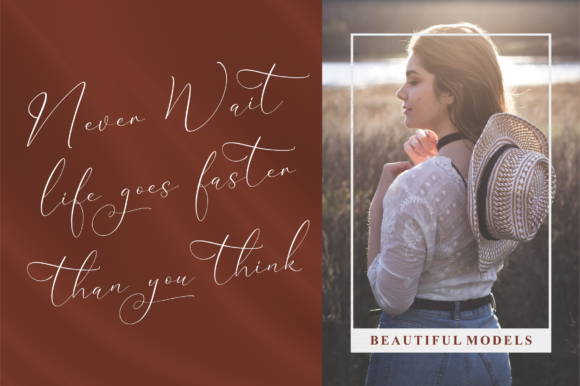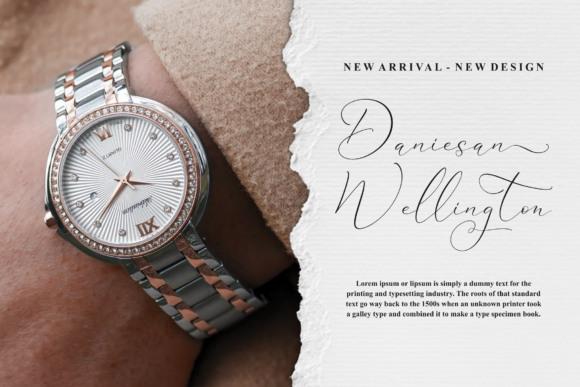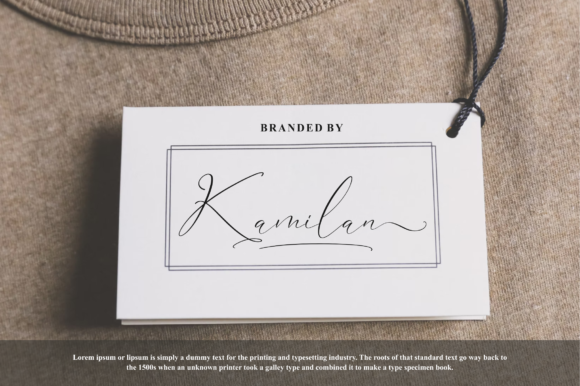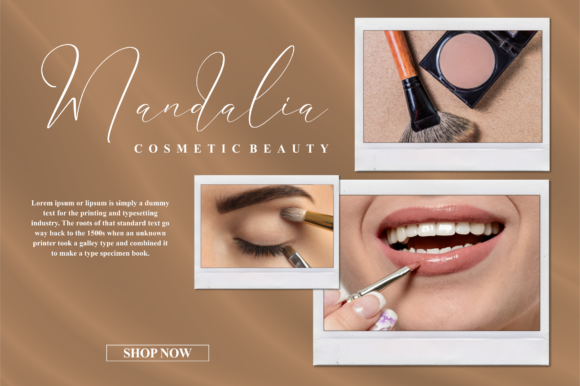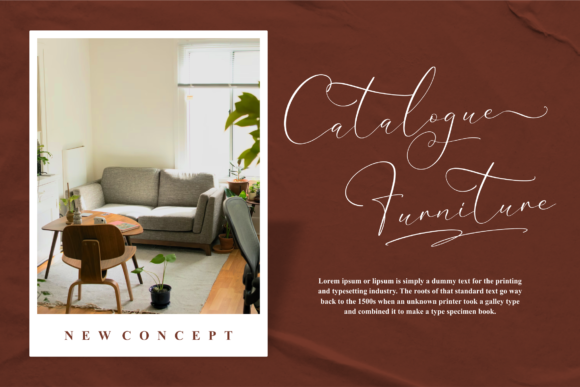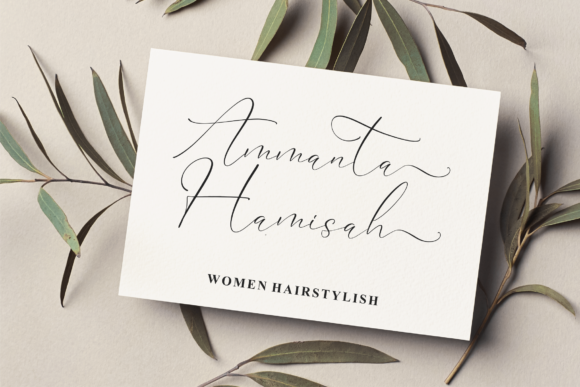
Falminga Charia Font: Elevate Your Designs with Elegance and Sophistication
Are you a designer or crafter looking for a beautiful script font to elevate your projects? Look no further than Falminga Charia Font. This stunning script font is perfect for a wide range of applications, from logos and branding projects to homeware designs, product packaging, and more.
What Makes Falminga Charia Font So Special?
Falminga Charia Font is a beautiful script font that exudes elegance and sophistication. Its flowing lines and curves make it perfect for designs that require a touch of luxury and refinement. Whether you’re working on a logo, a poster, or a product design, Falminga Charia Font is sure to impress.
One of the standout features of Falminga Charia Font is its versatility. It’s suitable for a wide range of projects, including:
- Logos and branding projects
- Homeware designs
- Product packaging
- Mugs and ceramics
- Quotes and posters
- Shopping bags and t-shirts
- Book covers and name cards
- Invitation cards and greeting cards
Falminga Charia Font is PUA encoded, which means you can access all of the glyphs and swashes with ease. This makes it simple to customize your designs and add your own personal touch. With PUA encoding, you can:
- Access a wide range of glyphs and swashes
- Easily customize your designs
- Add your own personal touch
Why Choose Falminga Charia Font?
There are many reasons why Falminga Charia Font is the perfect choice for your next design project. Here are just a few:
- Elegant and sophisticated design: Falminga Charia Font is perfect for designs that require a touch of luxury and refinement.
- Versatile: Suitable for a wide range of projects, from logos and branding projects to homeware designs and product packaging.
- Easy to use: PUA encoded for easy access to glyphs and swashes.
- High-quality: Professionally designed and crafted for the highest quality.
Tips for Using Falminga Charia Font
Here are a few tips for using Falminga Charia Font in your designs:
- Use it sparingly: Falminga Charia Font is a statement font, so use it sparingly to make a big impact.
- Experiment with different colors: Falminga Charia Font looks great in a range of colors, so experiment to find the perfect shade for your design.
- Pair it with other fonts: Falminga Charia Font pairs well with other fonts, so try pairing it with a sans-serif font for a contrasting look.
Falminga Charia Font is a beautiful script font that’s perfect for designers and crafters looking to elevate their projects. With its elegant and sophisticated design, versatility, and ease of use, it’s the perfect choice for a wide range of applications. Whether you’re working on a logo, a poster, or a product design, Falminga Charia Font is sure to impress.